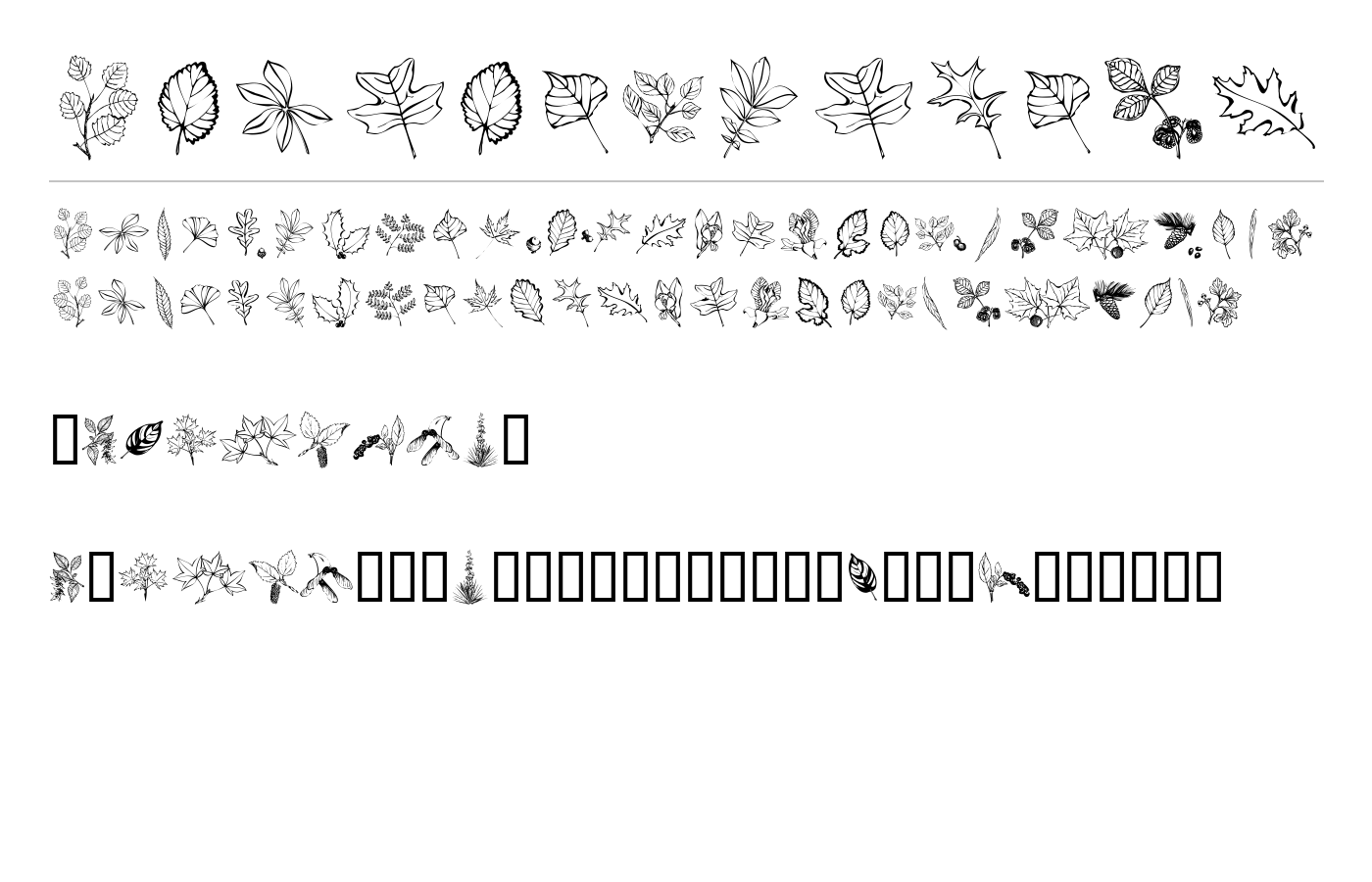
ArborisFolium is a decorative symbol font featuring intricately detailed botanical illustrations of leaves and foliage. With its fine line work and natural shapes, it brings an elegant, organic touch that’s perfect for nature-themed designs, branding, and packaging. This font works best when used as a decorative element or accent in projects where a refined, earthy aesthetic is desired.
ArborisFolium Font
About ArborisFolium Font